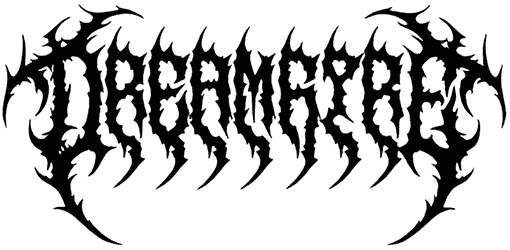
Dreamfire Font
Looking like demonic encryptions, the terrifying letter characters of Dreamfire can haunt you for life, whether you’re asleep or awake. You’re not going to miss the lowercase and numbers, because it seems like capitals are all that this death metal font needs to be chosen for T-shirts, music covers, etc.
The abundance of sharp details, coupled with its creepy design as a dripping font, lends a sort of decorative style to your text that makes the words a little less readable.